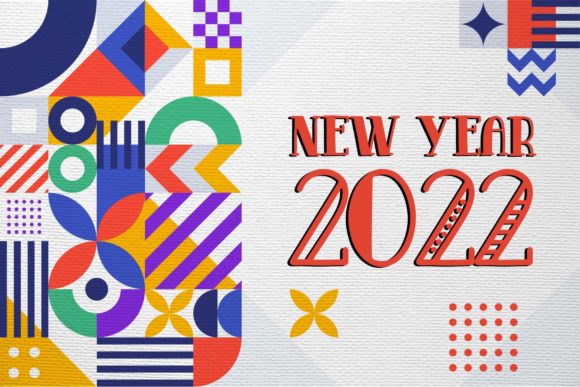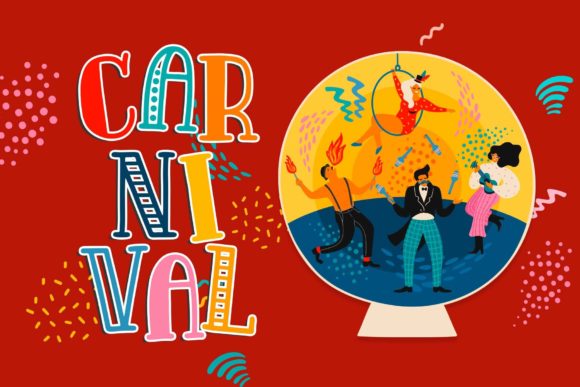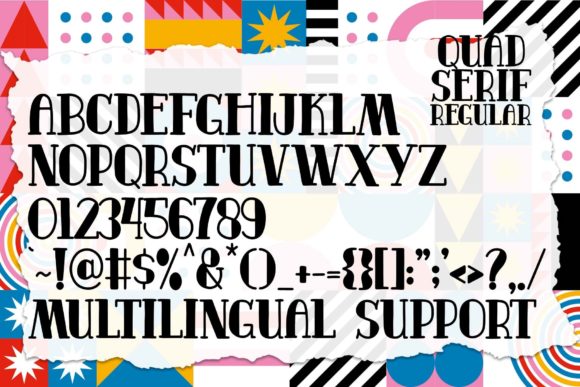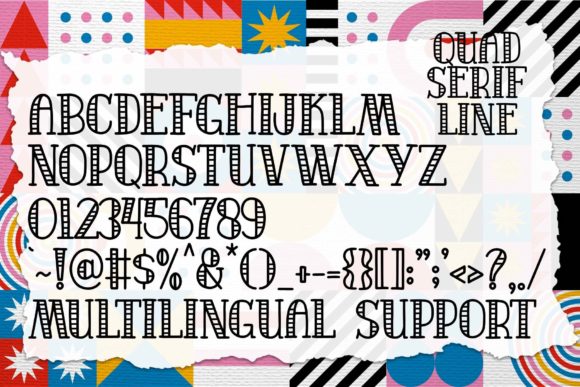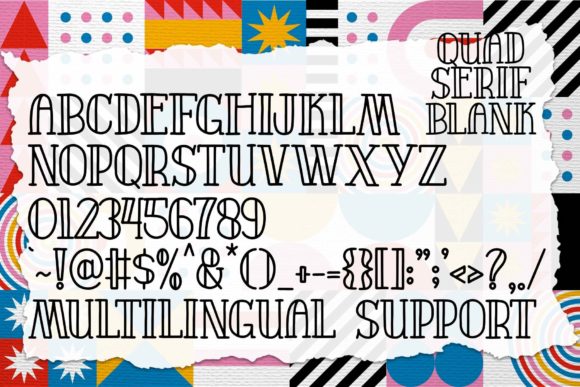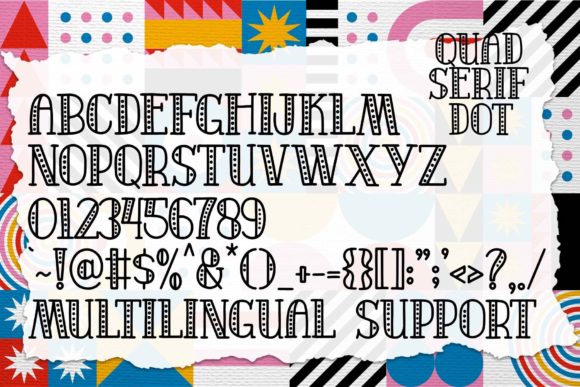
Introduction to Quad Serif Font
Quad Serif is a playful and fun serif font family that can fulfill all your design needs.
This font is modern and versatile, and it can easily become your favorite .
Key Features of Quad Serif Font
Why Choose Quad Serif Font?